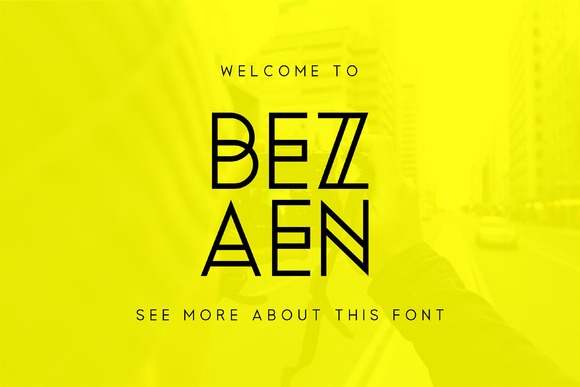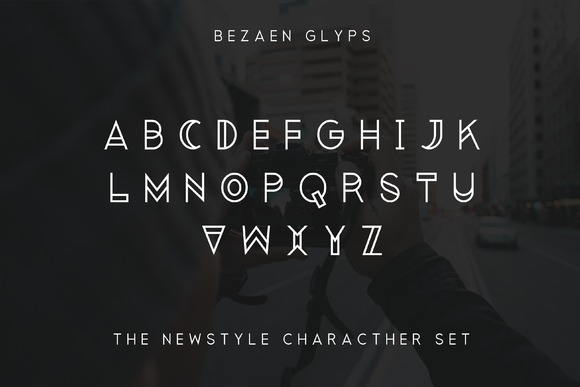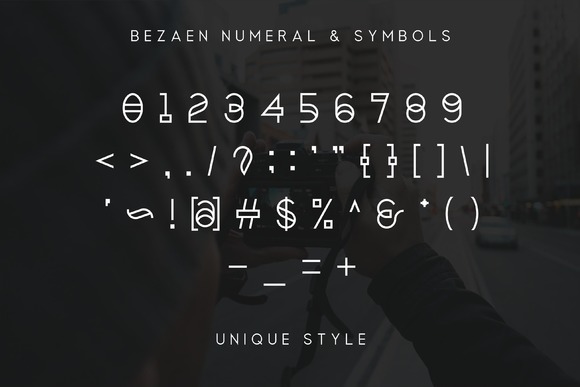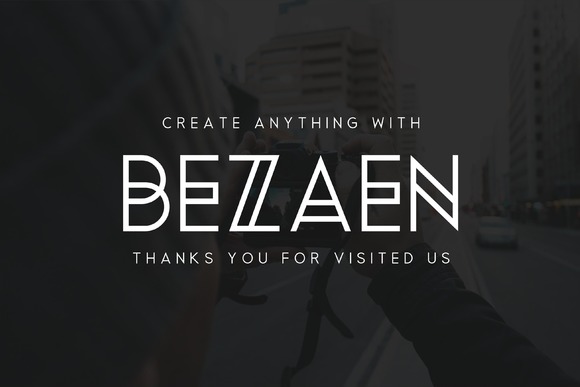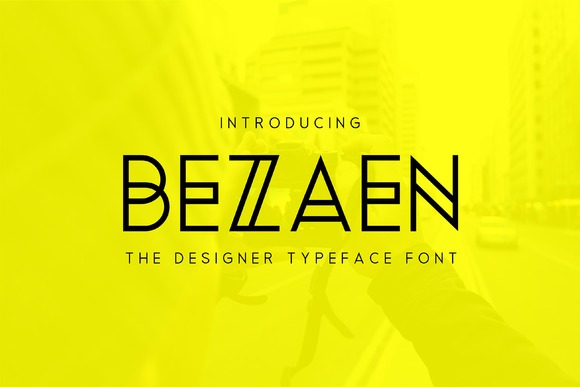
Introducing Bezaen Font: The Epitome of Clean and Minimalistic Typography
In the realm of typography, the quest for the perfect font is a never-ending journey. For designers and crafters, a well-crafted font can elevate a project from ordinary to extraordinary. This is where Bezaen Font comes into play. Dubbed as a perfect, clean, and minimalistic typeface, Bezaen Font has been making waves in the design community with its awesome characters and versatility.
The Allure of Bezaen Font
Bezaen Font is more than just a typeface; it’s a design statement. Its clean and minimalistic aesthetic makes it an ideal choice for projects that demand clarity and sophistication. The font’s design is characterized by its simple yet elegant lines, ensuring that it remains legible across various mediums, from digital screens to print materials.
Key Features of Bezaen Font
- Clean and Minimalistic Design: Bezaen Font boasts a design that is both clean and minimalistic. This makes it perfect for designers who are looking for a font that won’t distract from the content but will rather enhance it.
- Awesome Characters: One of the standout features of Bezaen Font is its set of awesome characters. Each character is meticulously designed to ensure that the font remains consistent and aesthetically pleasing.
- Versatility: Whether you’re working on a website, a logo, or a print project, Bezaen Font proves to be incredibly versatile. Its adaptability makes it a favorite among designers who work on a wide range of projects.
- Legibility: Despite its minimalistic design, Bezaen Font does not compromise on legibility. It is designed to be easily readable, making it suitable for both body text and headings.
Use Cases for Bezaen Font
The versatility of Bezaen Font means it can be used in a variety of contexts. Here are some scenarios where Bezaen Font truly shines:
- Web Design: For websites that require a clean and professional look, Bezaen Font is an excellent choice. Its legibility on digital screens makes it perfect for UI/UX design.
- Branding and Logos: The clean lines and minimalistic design of Bezaen Font make it an excellent choice for logos and branding projects. It can help create a modern and sophisticated brand image.
- Print Materials: From brochures to business cards, Bezaen Font can elevate your print materials with its elegance and simplicity.
- Advertising: For advertisements that need to convey a message quickly and effectively, Bezaen Font’s clear and readable design makes it a great option.
Why Designers and Crafters Love Bezaen Font
Bezaen Font has quickly become a favorite among designers and crafters for several reasons:
- Easy to Read: The font’s focus on legibility makes it easy to read, reducing eye strain and making it comfortable for users to engage with content.
- Professional Look: The clean and minimalistic design gives any project a professional look, which is invaluable for businesses and individuals looking to make a good impression.
- Time-Saving: With Bezaen Font, designers can save time that would otherwise be spent on customizing and fine-tuning a font. Its ready-to-use design is a significant advantage.
Bezaen Font stands out in the crowded world of typography with its perfect blend of cleanliness, minimalism, and character. Its versatility, legibility, and professional aesthetic make it an excellent choice for a wide range of projects. Whether you’re a designer working on a client’s project or a crafter looking for the perfect font for your handmade goods, Bezaen Font is sure to meet your needs and exceed your expectations.
In the quest for the perfect typeface, Bezaen Font emerges as a strong contender. Its awesome characters and design philosophy make it not just a font but a tool that can elevate your design work. Experience the difference that a well-crafted font can make with Bezaen Font.